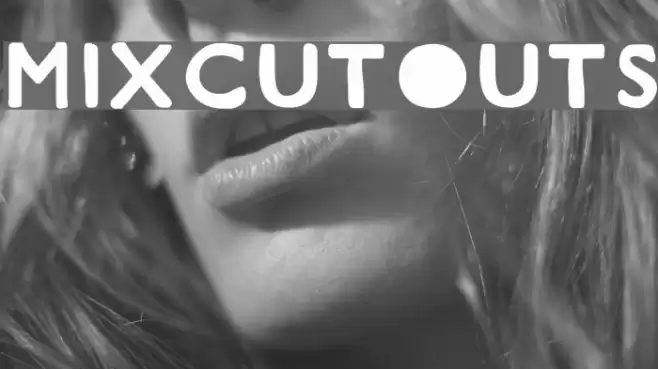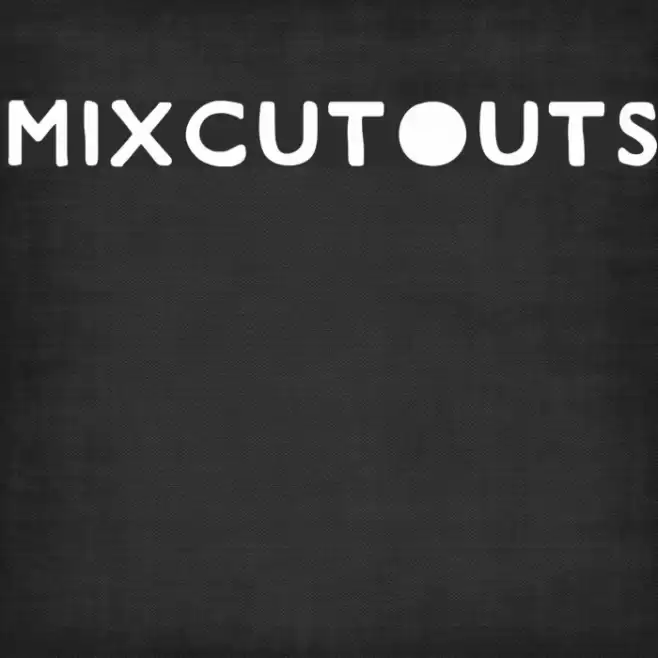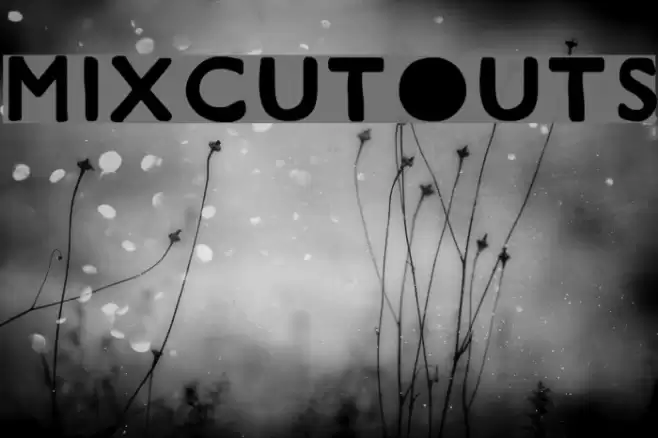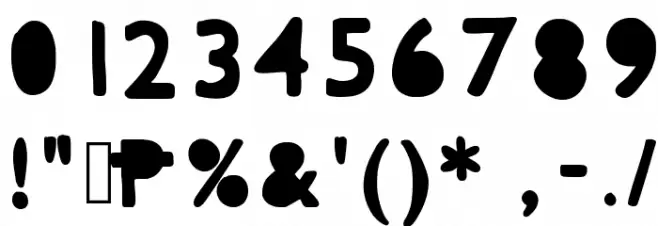
MixCutOuts Font
MixCutOuts Description
This font features a playful and bold style with a cut-out effect that adds a unique character to each letter. The uppercase and lowercase letters maintain a consistent thickness, creating a cohesive look. The numbers and special characters follow the same design principle, ensuring uniformity across all elements. The font's rounded edges and smooth curves contribute to its friendly and approachable appearance, making it suitable for a variety of creative projects. Its distinct style is perfect for capturing attention and adding a touch of whimsy to any design.
A playful, bold font with a unique cut-out effect and rounded edges from Distorted Eroded fonts.
- Proposed Projects: Ideal for children's books, playful branding, posters, and creative advertising.
- Overall Style: Playful, Whimsical